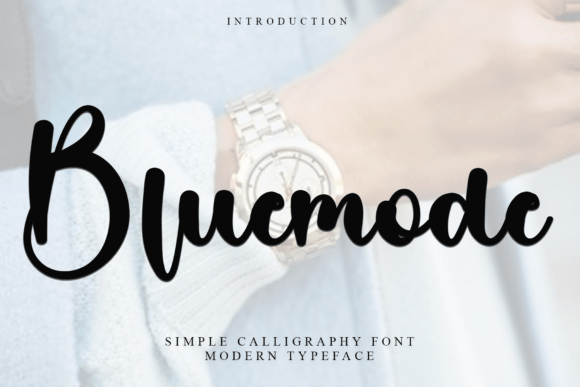
The Magic of Bluemode Font: Elevate Your Holiday Designs
It’s that time of the year again – the season of joy, giving, and, of course, designing festive projects! I still remember the year I was tasked with creating a custom holiday card for a client. I spent hours scouring font libraries, searching for the perfect typeface that would capture the essence of the season. That’s when I stumbled upon Bluemode Font, a game-changing discovery that has since become a staple in my design toolkit.
What Makes Bluemode Font So Special?
Bluemode is a festive and merry typeface that embodies the spirit of the holiday season. With its decorative elements and whimsical flair, it adds a touch of enchantment to your designs. This font is perfect for greeting cards, gift tags, and holiday-themed projects, bringing a cheerful and nostalgic ambiance to your words.
What I Love About Bluemode Font
• ✨ Festive and Whimsical: Bluemode Font is designed to capture the magic of the holiday season, making it perfect for creating festive designs.
• 🎉 Versatile: Bluemode Font can be used for a variety of projects, from greeting cards to gift tags, and even holiday-themed social media graphics.
⚠️ While Bluemode Font is a wonderful addition to any design project, it’s worth noting that it may not be suitable for body text or large blocks of text. Its decorative nature makes it more suitable for headings, titles, and short phrases.
🤔 Additionally, some users may find that the font’s whimsical flair may not be suitable for more formal or professional designs.
The Story Behind Bluemode Font
Bluemode Font was designed by a team of creative typographers who wanted to capture the magic of the holiday season in a font. Inspired by traditional holiday decorations and festive typography, they created a font that’s both whimsical and elegant. The result is a font that’s perfect for adding a touch of enchantment to your holiday designs.
What is Bluemode Font? Bluemode Font is a festive and merry typeface designed to capture the spirit of the holiday season.